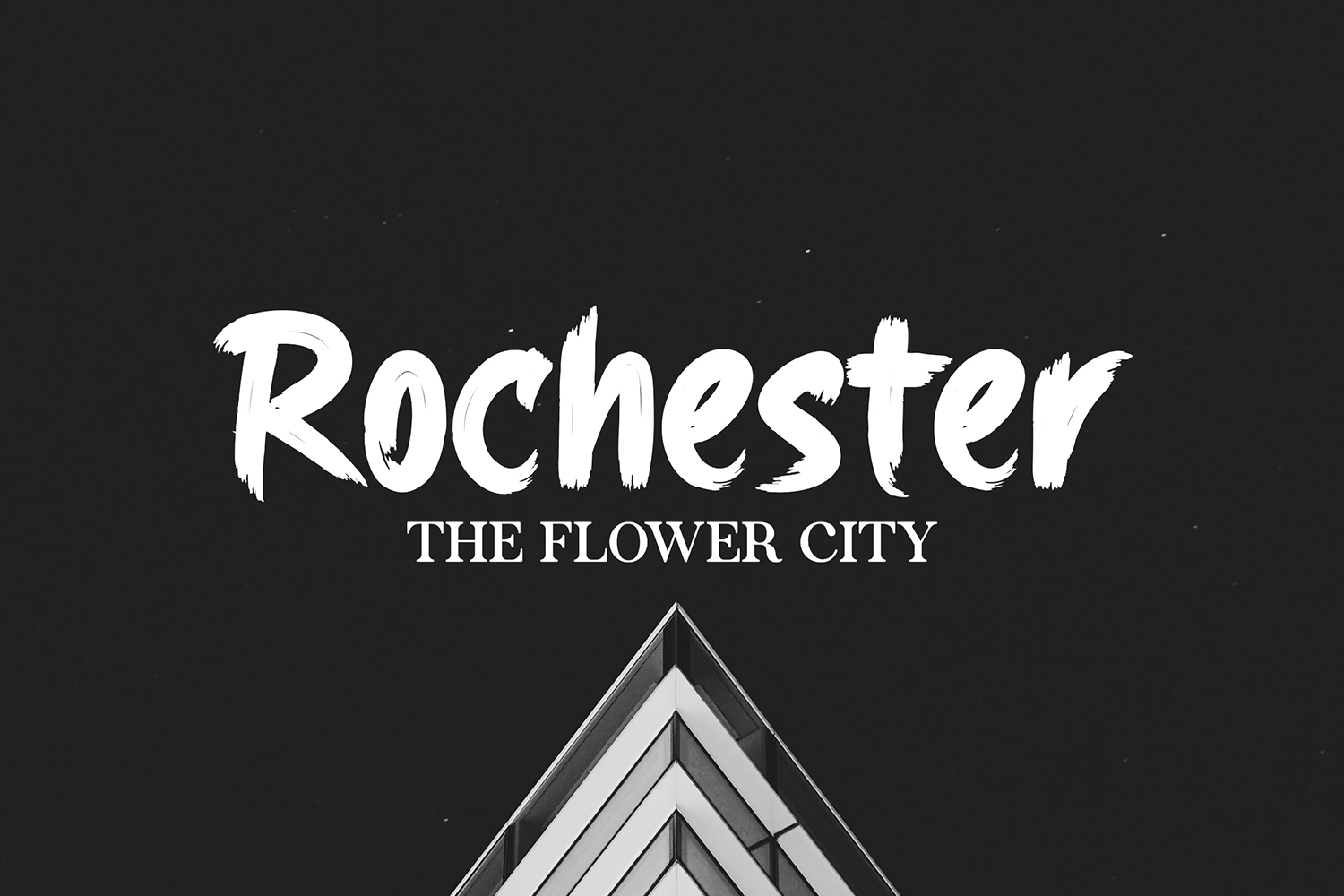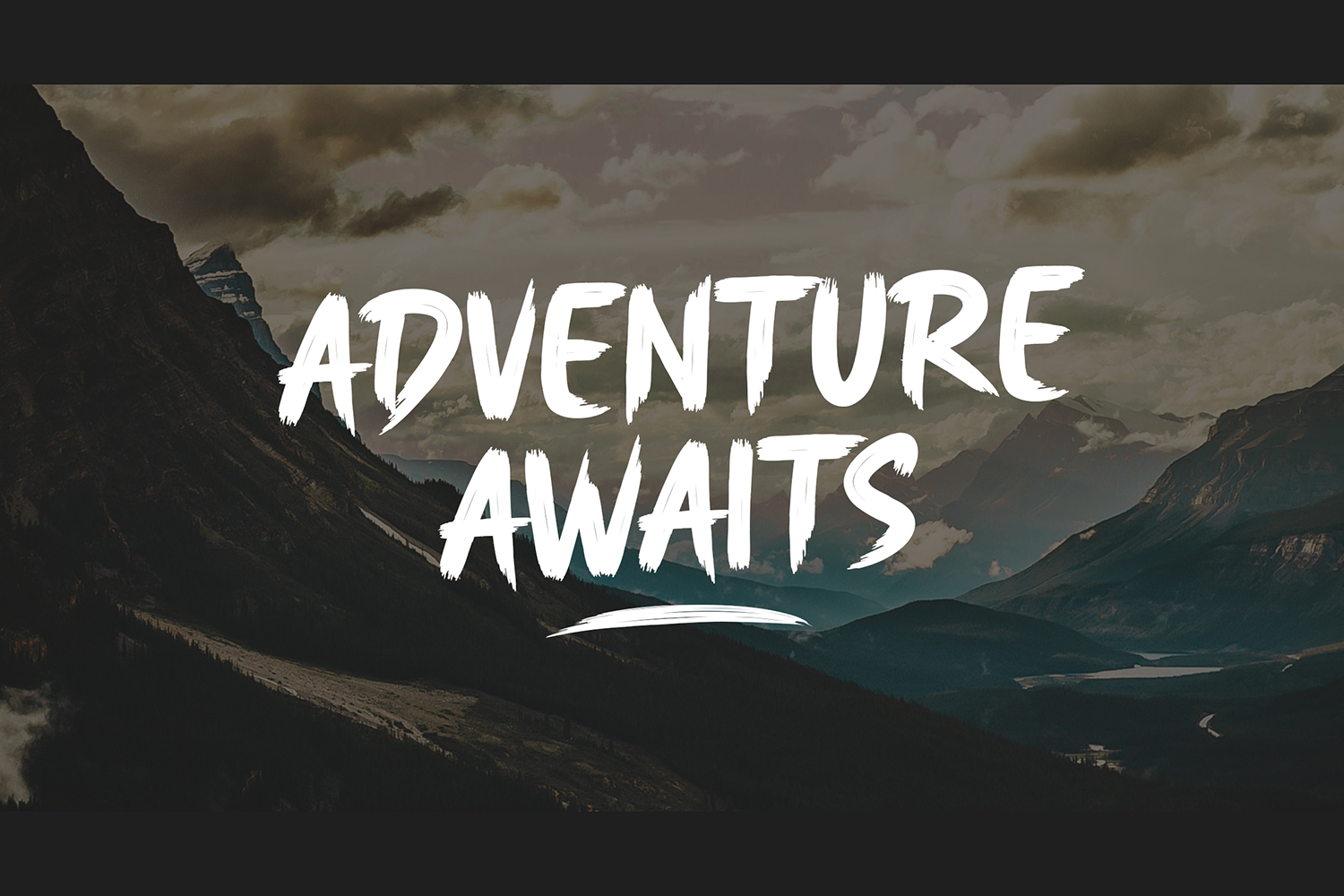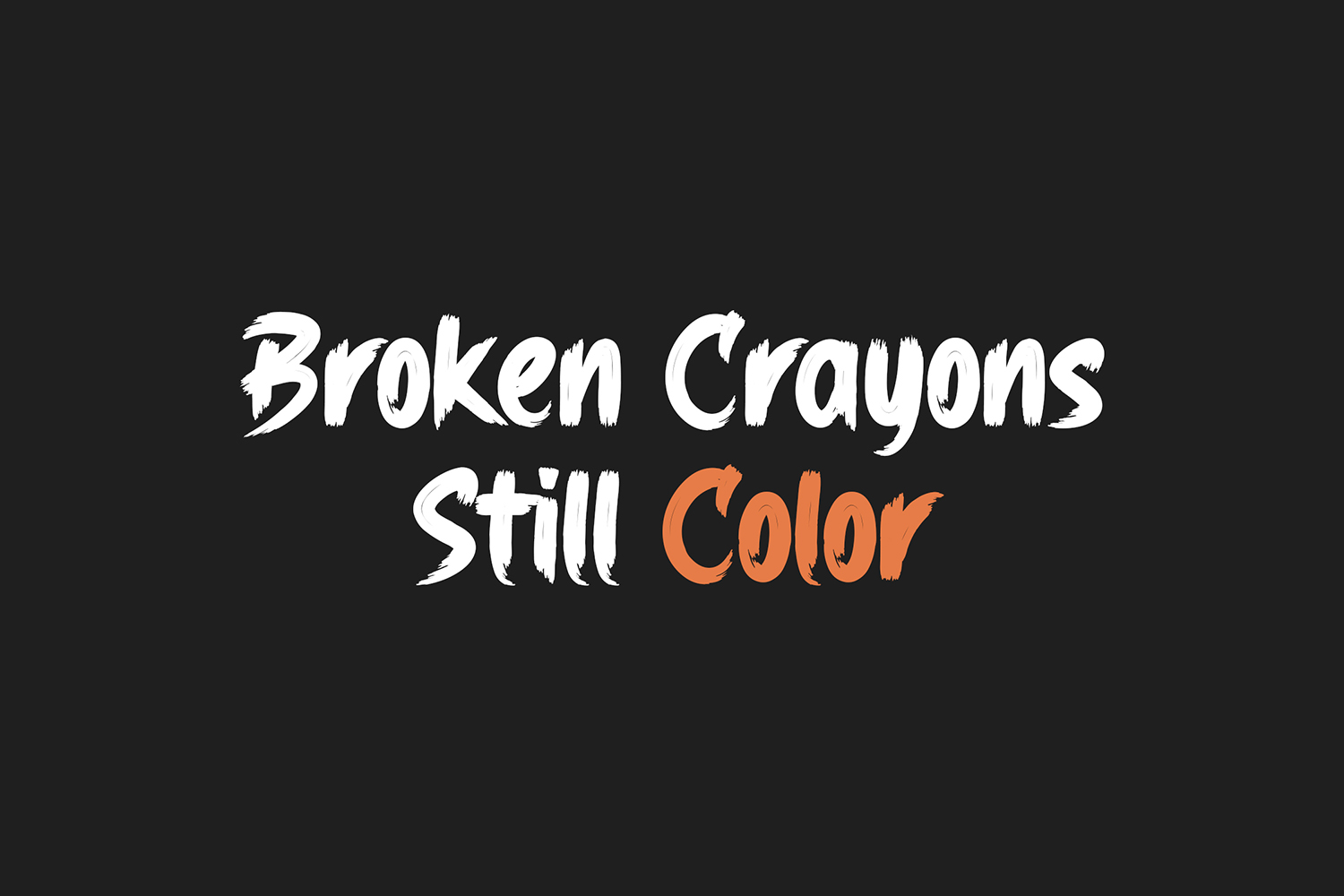
Donsky Free Font
Introducing Donsky, a distinctive dry brush display font that adds a touch of creativity to any project. Whether it’s logos, branding projects, product packaging, mugs, quotes, posters, shopping bags, t-shirts, book covers, labels, photography, watermarks, or beyond, this versatile font is perfect for them all. Elevate your designs with the captivating and unique charm of Donsky, making your DIY projects truly come to life. Unleash your imagination and let this gorgeous font take center stage, leaving a lasting impression on your audience. Discover the endless possibilities of Donsky and make your designs stand out from the crowd. This free typeface was designed by a talented Lemonthe. If you like it don’t forget to check out the full version.